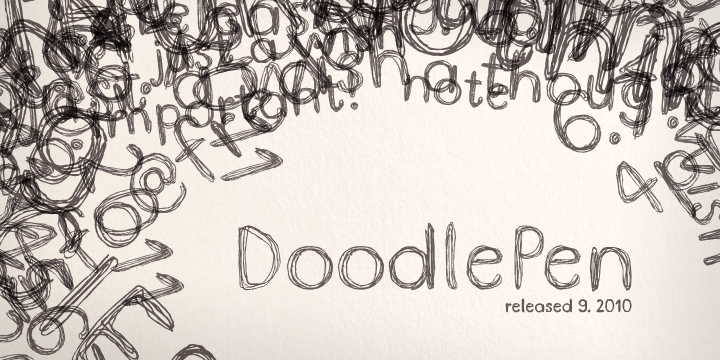
The Doodle Pen Font is an excellent choice for designs that aim for a whimsical, playful, and distinctly hand-drawn aesthetic, mimicking the spontaneous charm of a quick sketch or note. Imagine it playfully illustrating a personal blog, adding a unique and informal touch to social media posts, or bringing a spontaneous, creative feel to children's activity books. It's also perfectly suited for handcrafted product labels, quirky invitations, artistic presentations, and any project where you want to convey a sense of individuality, lightheartedness, and a charmingly personal touch. Its often irregular strokes, quirky letterforms, and unassuming presence make it ideal for conveying sincerity and an unpretentious flair.
What makes the Doodle Pen Font so exciting is its ability to instantly infuse a design with a feeling of authentic human touch and creative freedom. It frequently features subtle imperfections and a natural flow that mimics genuine penmanship, making it feel organic and relatable. This font has a casual and distinctive personality that can instantly elevate your design, making it feel both whimsical and expressively artistic. It’s designed to capture attention with its informal beauty, ensuring your message is not just seen, but felt with a sense of delightful authenticity.
The Doodle Pen Font family typically might be offered in a single, impactful weight to maximize its unique hand-drawn effect, though some variations might include stylistic alternates or unique ligatures that enhance its doodle-like appeal. Its primary focus is usually on its distinctive visual impact rather than extensive weight ranges. These variations empower designers to create a truly inviting and memorable display, ensuring the Doodle Pen Font Free Download can adapt to a wide array of projects while maintaining its signature, charmingly informal style.